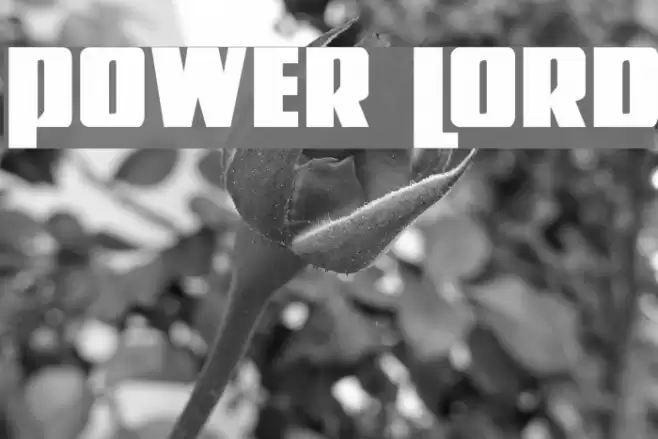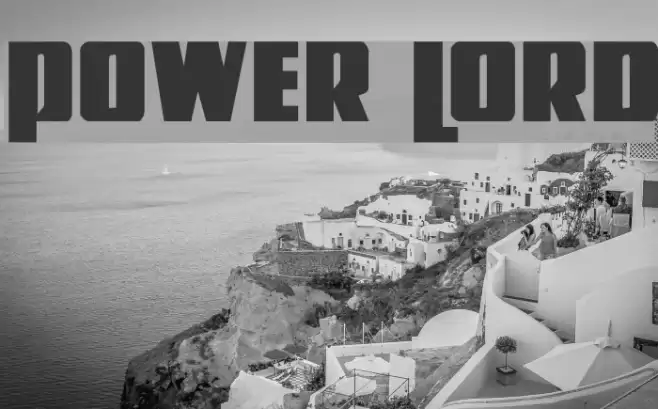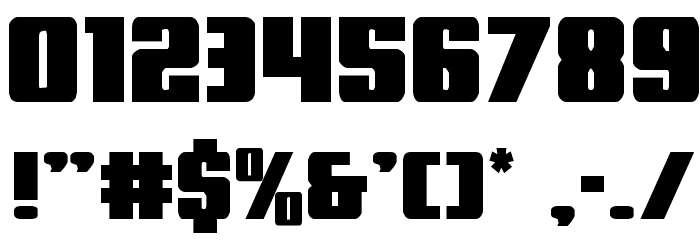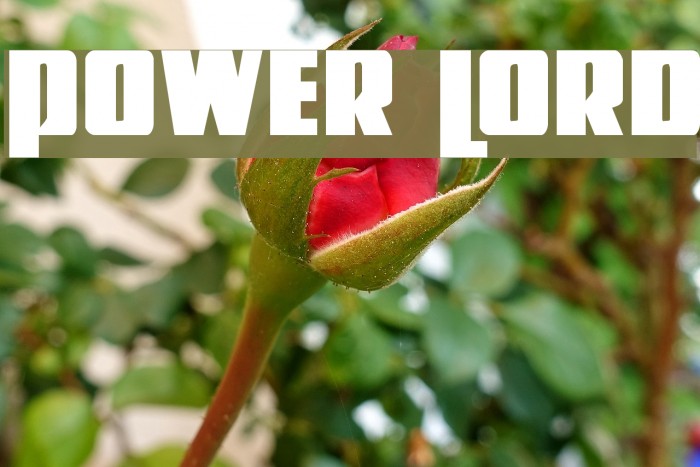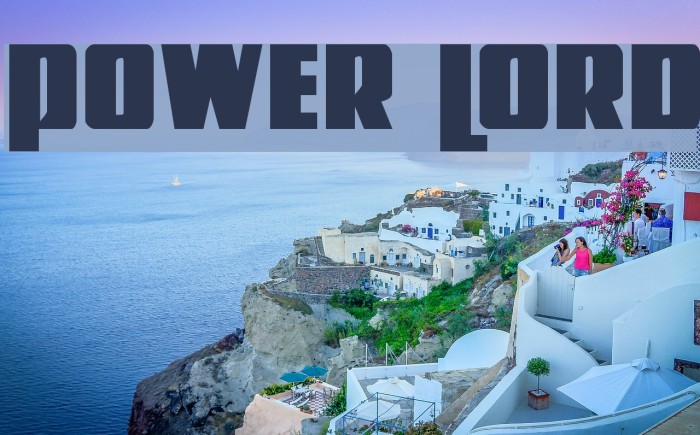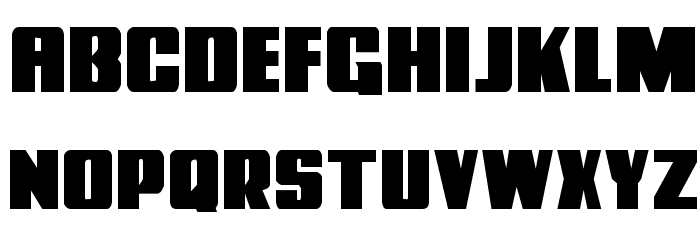
Power Lord Font
Power Lord Description
This font exudes a bold and powerful presence, characterized by its thick, blocky letters and strong geometric shapes. The uppercase and lowercase letters maintain a consistent weight, creating a uniform and impactful appearance. The numbers and special characters follow the same robust design, ensuring a cohesive look across all text elements. The font's style is reminiscent of industrial or futuristic themes, making it ideal for projects that require a commanding and assertive typeface. Its solid structure and high contrast between the strokes make it highly legible, even from a distance.
A bold, geometric font with a strong, industrial style from Uncategorized fonts.
- Proposed Projects: Ideal for branding, posters, headlines, and any design requiring a strong visual impact.
- Overall Style: Modern, Industrial